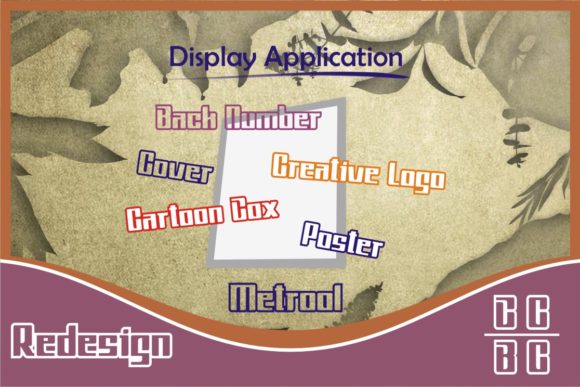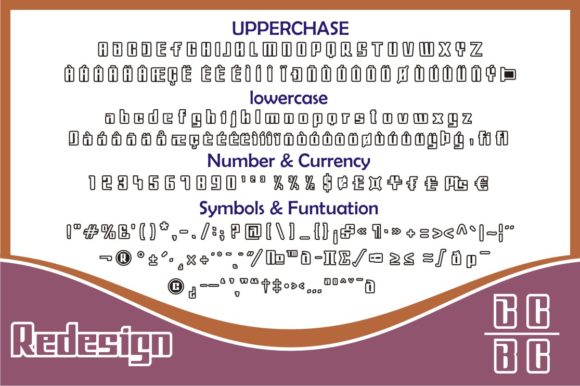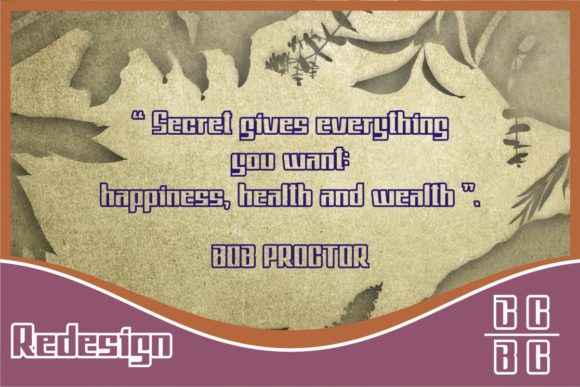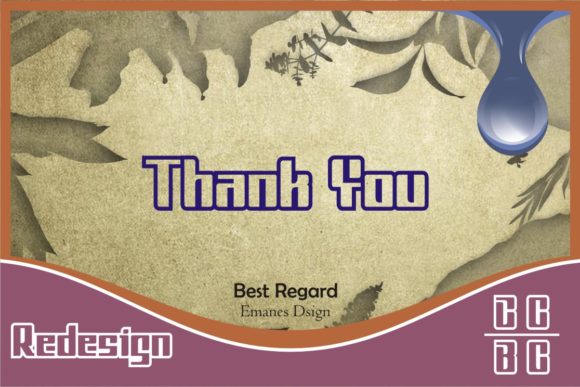
Introduction to Metrool Font
Metrool is a bold and classic display font with a powerful feel.
It will put a dynamic spin on any design project .
Key Features of Metrool Font